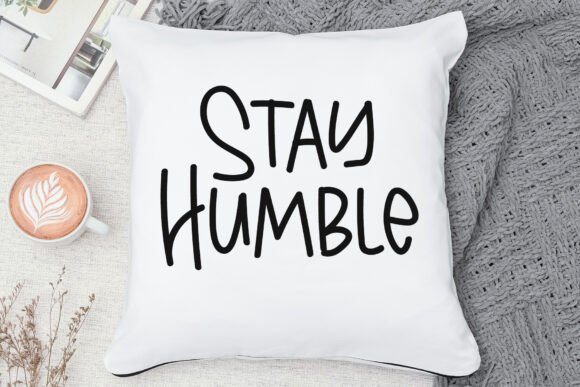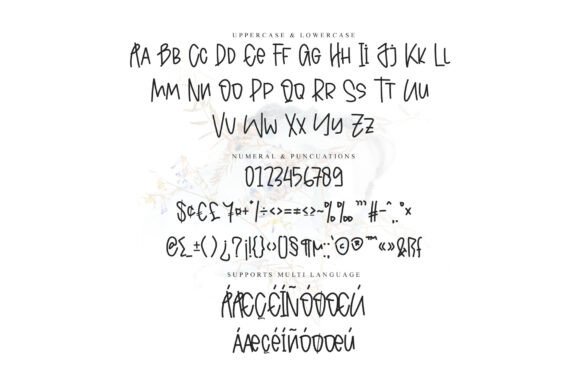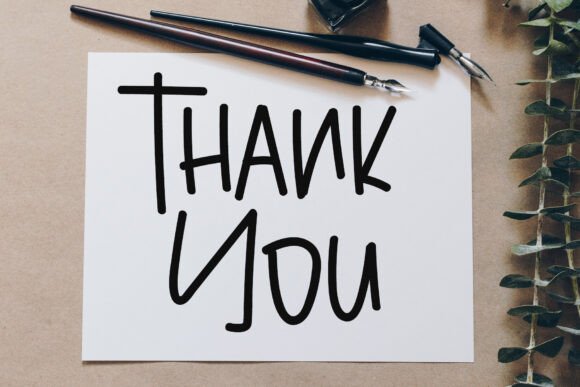
Introduction to Knight Bright Font
Have you ever been in the middle of a creative project, pouring your heart and soul into it, only to realize that the right font can make all the difference? That’s exactly what happened to me when I stumbled upon the Knight Bright Font. I was working on a design for a client, and I knew I needed something special to bring their brand to life. That’s when I discovered this beautiful, modern handwritten font that instantly elevated my design.
| 👤 Author | 21Design |
As a designer, you know how valuable a great font can be. It’s not just about aesthetics; it’s about conveying the message and emotion you want to convey. And that’s exactly what the Knight Bright Font does. With its high-quality design and transparent background, it’s a design resource that can take your creative projects to the next level.
Key Features of Knight Bright Font
- High-quality design resource ideal for creative projects, offering a unique and elegant look.
- Transparent background, allowing for easy customization and seamless integration into various design elements.
- Designed with high resolution, ensuring crisp and clear text rendering, even at large sizes.
- Perfect for use in creative projects, such as logos, branding materials, and typography-based artwork.
Honest Review: Knight Bright Font
I recently stumbled upon the Knight Bright Font, and I must say it’s a game-changer for my design projects. The first thing that caught my attention was its stunning aesthetic, perfect for creative projects that require a touch of elegance and sophistication. ✨
Here are some of the things that work well with the Knight Bright Font:
- Unique and modern design style
- Excellent legibility, even at small font sizes
- High-resolution images, perfect for use on various backgrounds
- Support for both transparent background and solid colors
However, I did encounter some limitations with the Knight Bright Font:
- Limited font styles and weights available
- No support for Cyrillic or other non-Latin scripts
Overall, I’m thoroughly impressed with the Knight Bright Font. Its high quality, unique design style, and free availability make it a valuable addition to any designer’s toolkit. If you’re looking for a reliable design resource for your next creative project, I highly recommend giving the Knight Bright Font a try.
Tips for Getting the Most Out of Knight Bright Font
To get the most out of the Knight Bright Font, use it with a transparent background to create a striking visual effect. Experiment with different font sizes and colors to add depth and interest to your design.
The Knight Bright Font is ideal for use in creative projects, such as logos, business cards, and social media graphics. Its high-quality design and versatility make it a popular choice among designers.